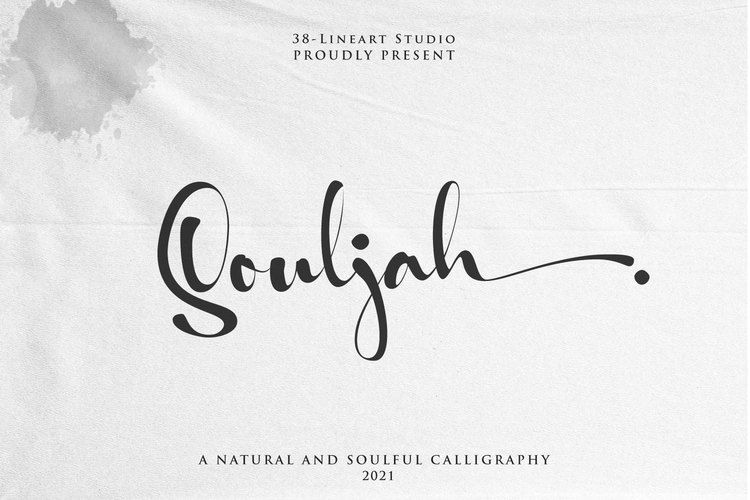
Let us introduce you our new font Souljah, a natural script font.
This font has a very contrast stroke, very wide down stroke and very tiny up stroke.
Every glyphs shaped very flowy and smooth as if it is written by a dancing hand.
All glyphs are connected nicely, this font also included ligature to add more natural touch.
“Natural and Soulful Calligraphy” is a perfect tagline to describe Souljah
Opentype font with ligature, swash alternate and multilingual support.